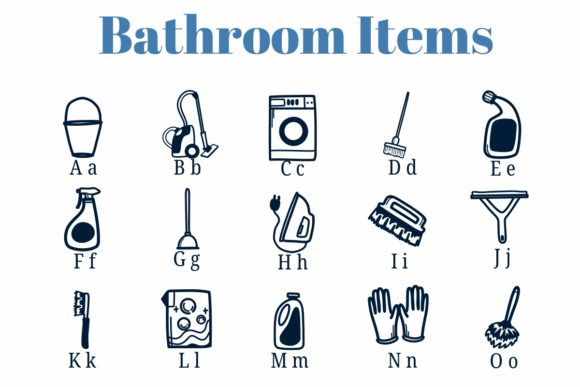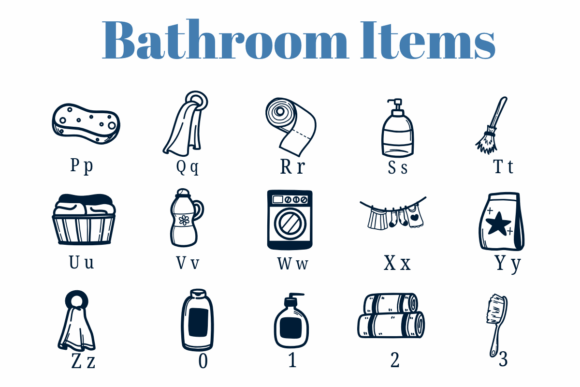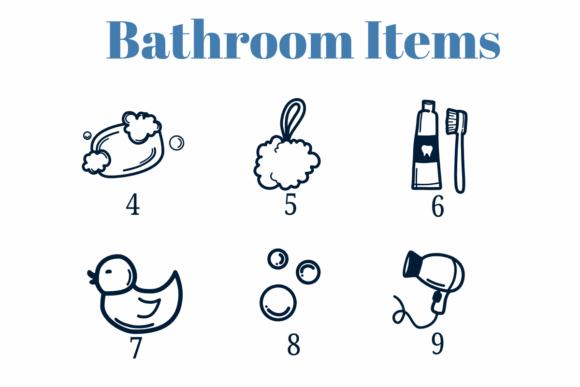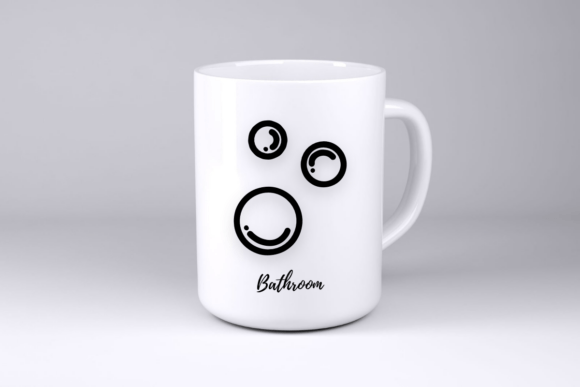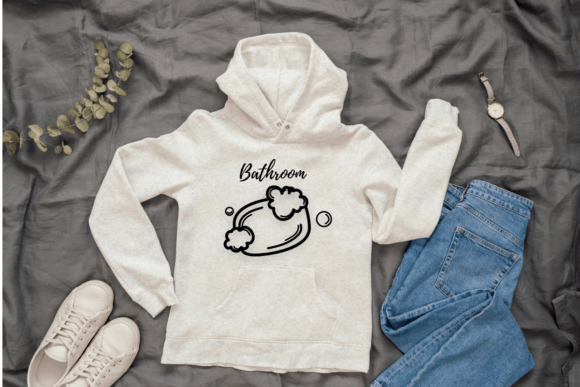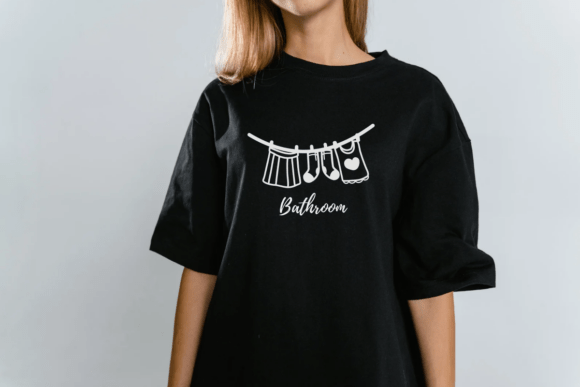
Bathroom Items Font: Elevate Your Designs with a Sketchy Twist
Are you a designer, crafter, or DIY enthusiast looking for a unique font to add a personal touch to your projects? Look no further than the Bathroom Items font, a charming dingbats font with a sketch style theme that’s perfect for a wide range of creative applications.
What is Bathroom Items Font?
Bathroom Items font is a dingbats font that features a delightful collection of bathroom-themed icons, including toiletries, fixtures, and other bathroom essentials. The font’s sketchy style gives it a hand-drawn, organic feel that’s perfect for adding a touch of whimsy to your designs.
Uses for Bathroom Items Font
The Bathroom Items font is incredibly versatile and can be used for a wide range of creative projects, including:
- Wedding Invitations: Add a touch of elegance and sophistication to your wedding invitations with the Bathroom Items font. Use it to create custom icons, such as bathroom-themed save-the-dates or wedding stationery.
- DIY and Crafts: The Bathroom Items font is perfect for DIY enthusiasts and crafters who love to create handmade projects. Use it to add a personal touch to your craft tutorials, patterns, and instructions.
- Decorations: Create custom decorations, such as wall art, signs, and banners, using the Bathroom Items font. Its sketchy style gives it a unique, hand-drawn feel that’s perfect for adding a touch of personality to your decor.
- Logos and Branding: The Bathroom Items font can also be used to create custom logos and branding materials, such as business cards, letterheads, and packaging.
Benefits of Using Bathroom Items Font
The Bathroom Items font offers a range of benefits for designers, crafters, and DIY enthusiasts, including:
- Unique and Eye-Catching: The Bathroom Items font is a unique and eye-catching addition to any design project. Its sketchy style and bathroom-themed icons make it a standout font that’s sure to grab attention.
- Customizable: The Bathroom Items font is highly customizable, allowing you to adjust the font size, color, and style to suit your design needs.
- Easily Readable: Despite its sketchy style, the Bathroom Items font is easily readable, making it perfect for use in a wide range of applications, from signage to stationery.
Tips for Using Bathroom Items Font
Here are some tips for getting the most out of the Bathroom Items font:
- Use it Sparingly: While the Bathroom Items font is a beautiful addition to any design project, it’s best used sparingly. Use it to add a touch of personality to your designs, rather than overwhelming them with too many icons.
- Experiment with Colors: The Bathroom Items font looks great in a range of colors, from bold and bright to soft and pastel. Experiment with different colors to find the perfect look for your design project.
- Combine with Other Fonts: The Bathroom Items font pairs well with a range of other fonts, from serif and sans-serif fonts to script fonts. Experiment with combining it with other fonts to create a unique and eye-catching design.
The Bathroom Items font is a unique and versatile dingbats font that’s perfect for designers, crafters, and DIY enthusiasts. Its sketchy style and bathroom-themed icons make it a standout font that’s sure to add a touch of personality to any design project. Whether you’re creating wedding invitations, DIY crafts, or custom decorations, the Bathroom Items font is a great choice. So why not give it a try and see how it can elevate your designs?